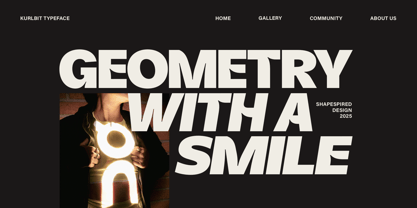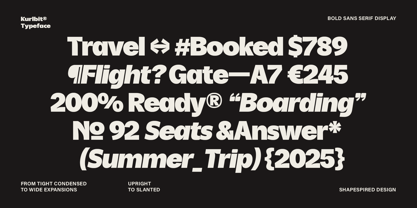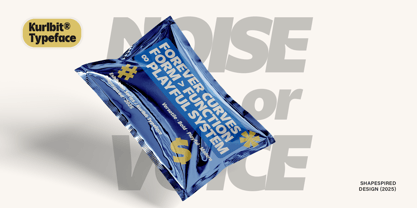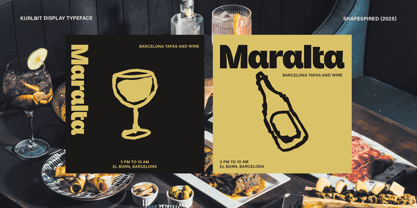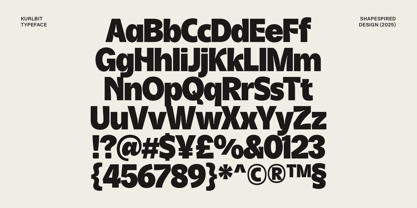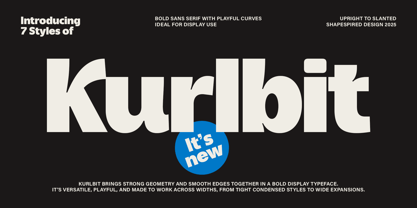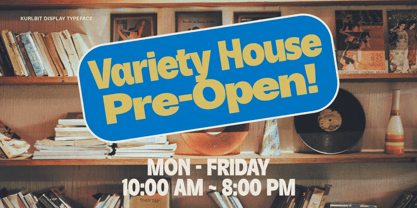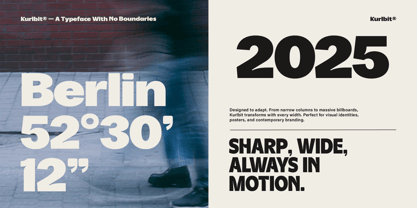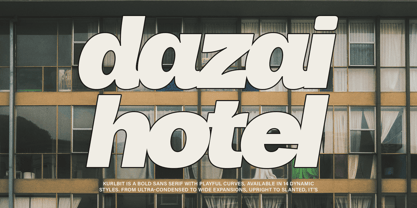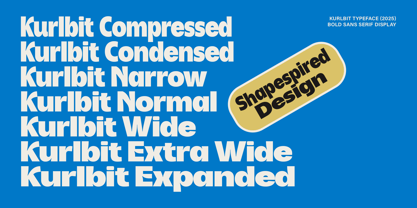
Kurlbit
Kurlbit is a versatile sans serif display typeface built for impact. Spanning 14 styles in multiple widths and slants, it adapts to projects that demand strong hierarchy and flexibility. From tight condensed headlines to expansive wide layouts, Kurlbit delivers clarity, consistency, and a touch of personality. Its geometric foundation ensures strength and balance, while subtle curves add a sense of warmth and approachability. Designed for posters, branding, packaging, and digital media, Kurlbit offers a complete system that gives designers the freedom to create bold statements with confidence and precision.
✦ Features
- 7 Width Styles: Compressed, Condensed, Narrow, Normal, Wide, Extra Wide, Expanded
- Available in Upright & Slant styles
- Bold sans serif display family
- Uppercase & lowercase support
- Numbers, punctuation, and symbols
- Multilingual support
- Perfect for posters, headlines, branding, packaging, and digital media.